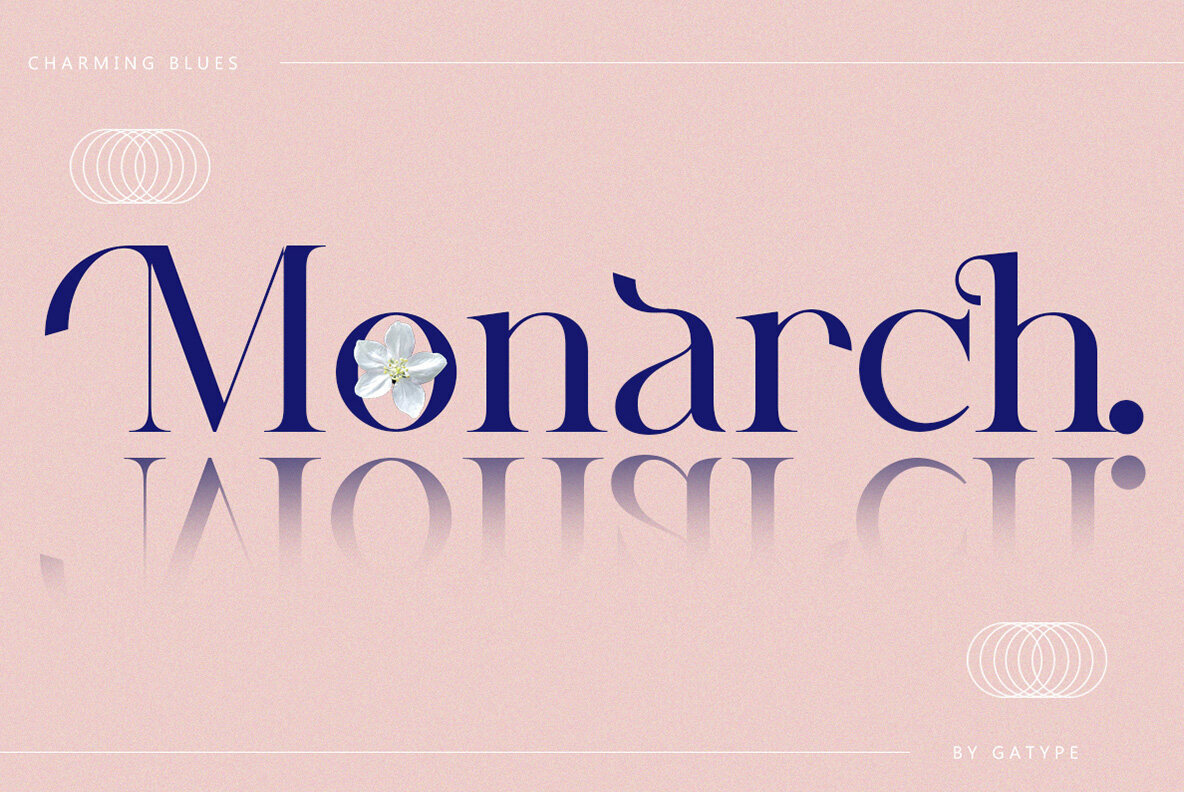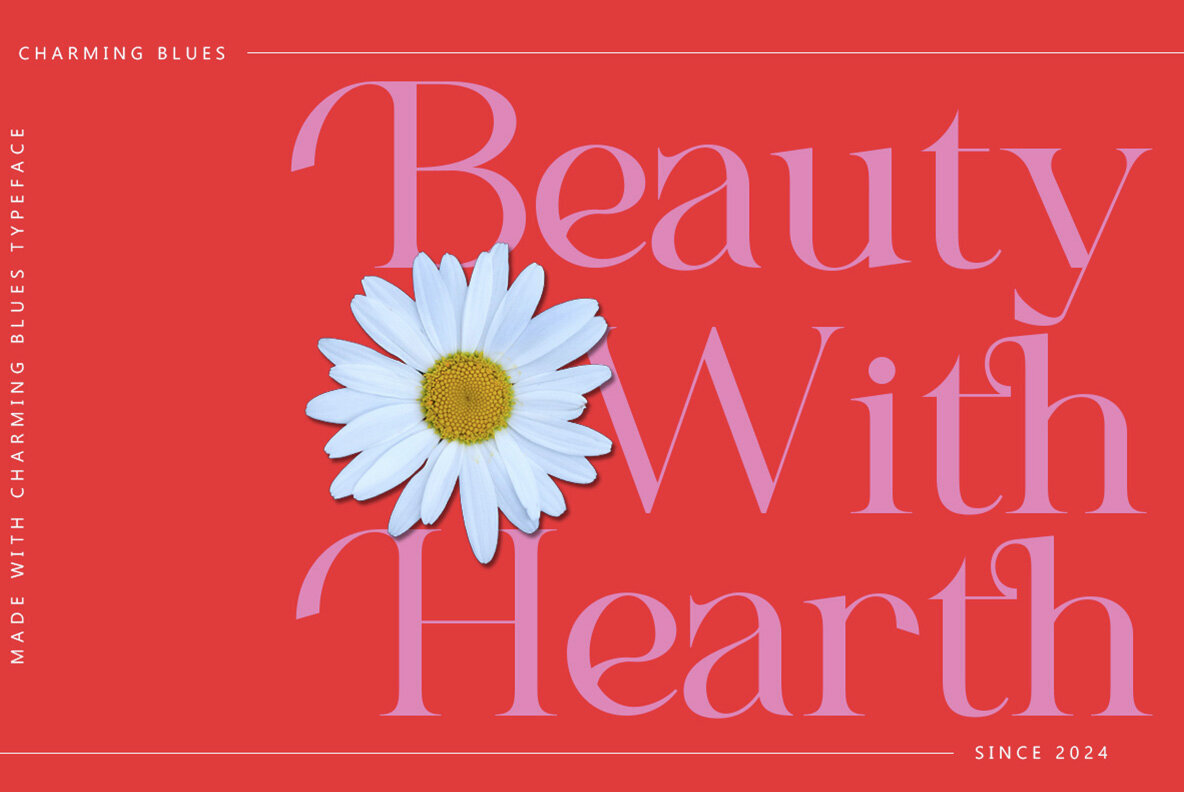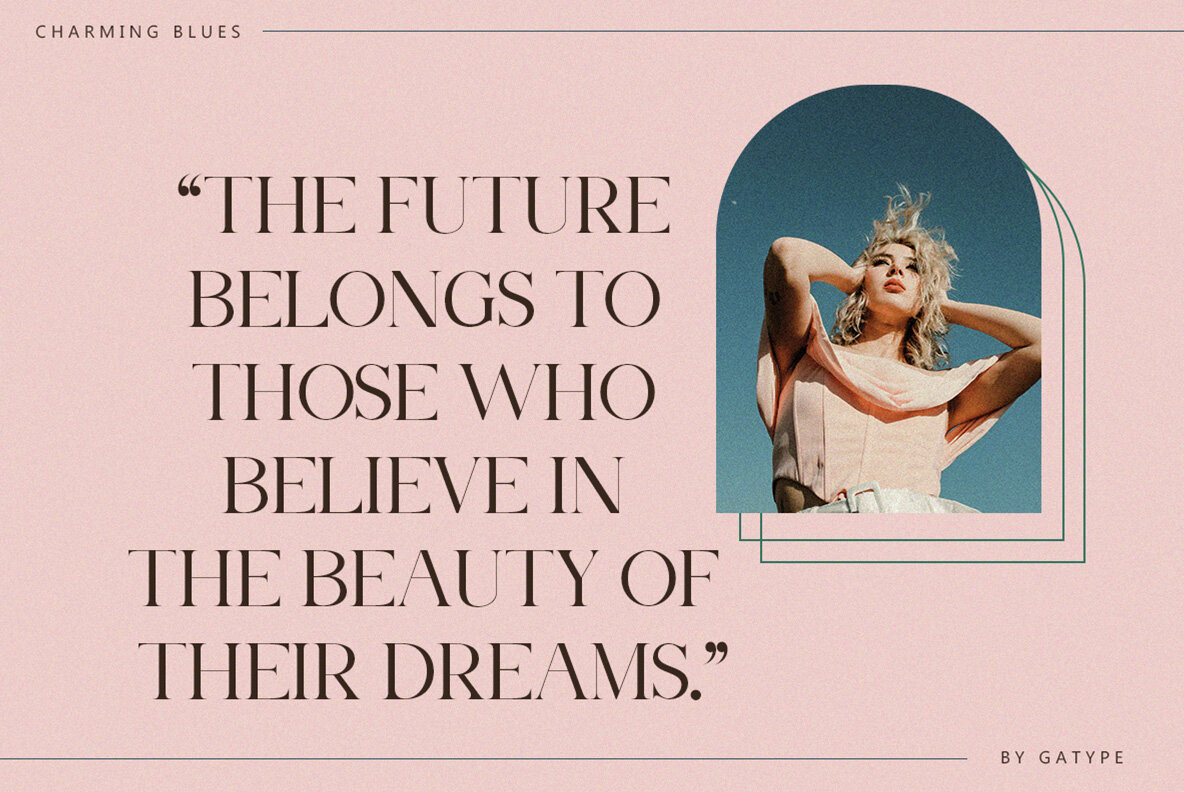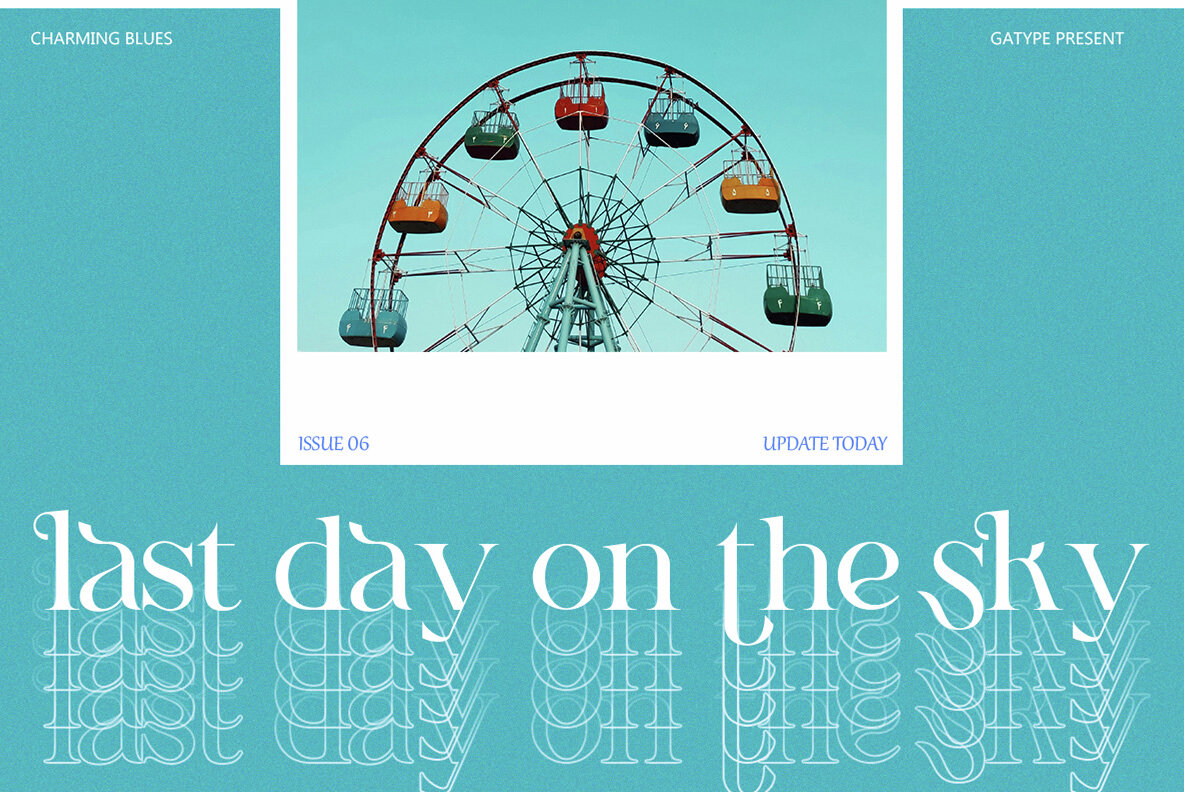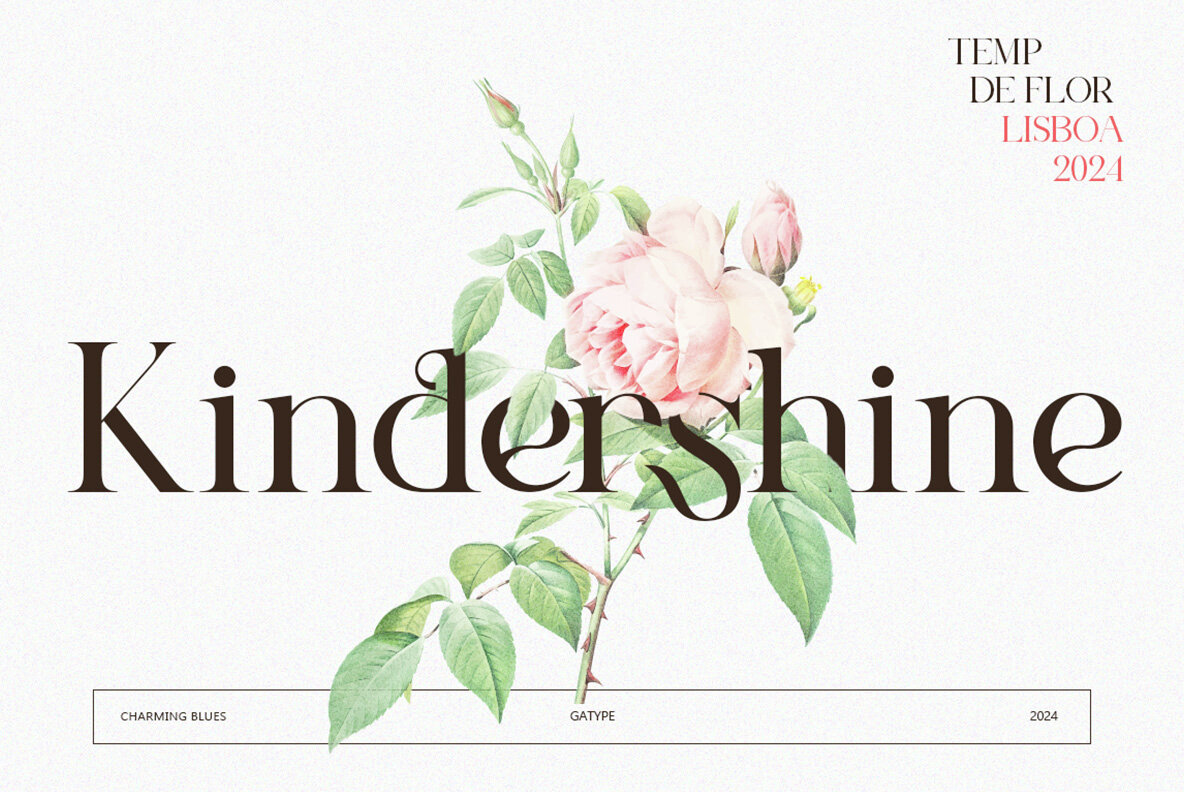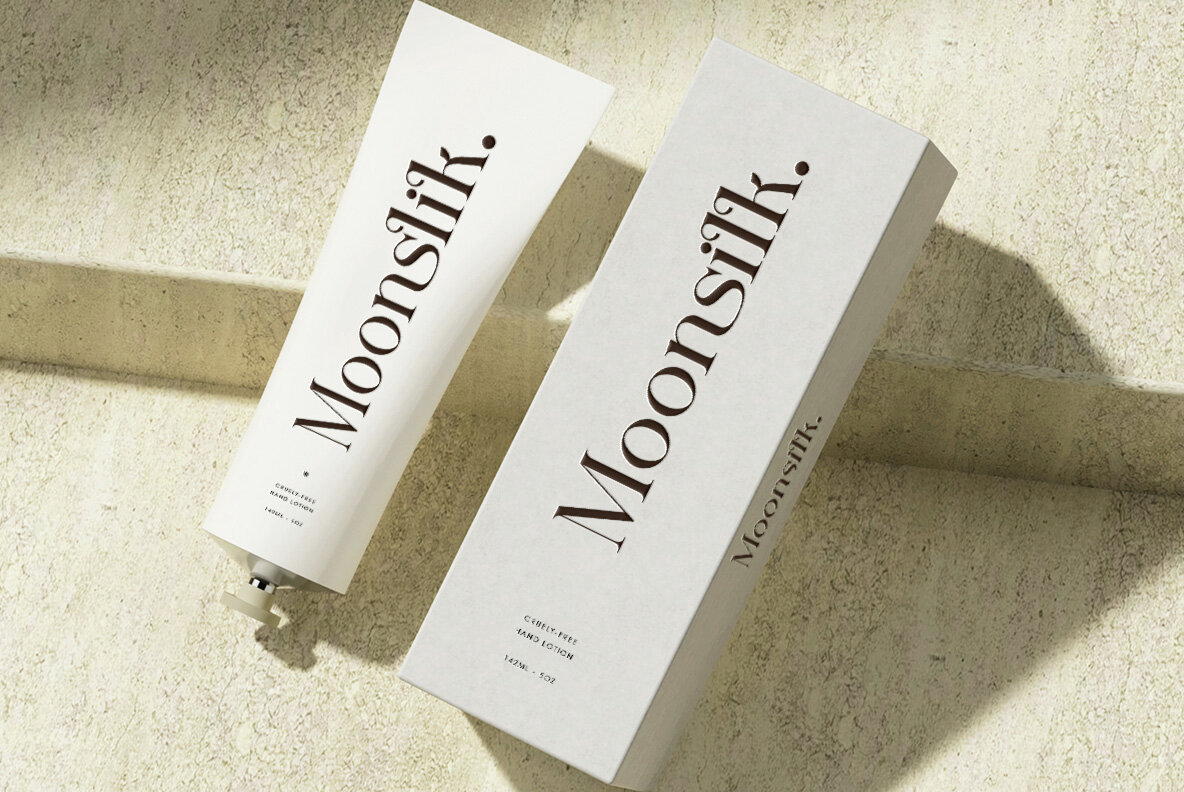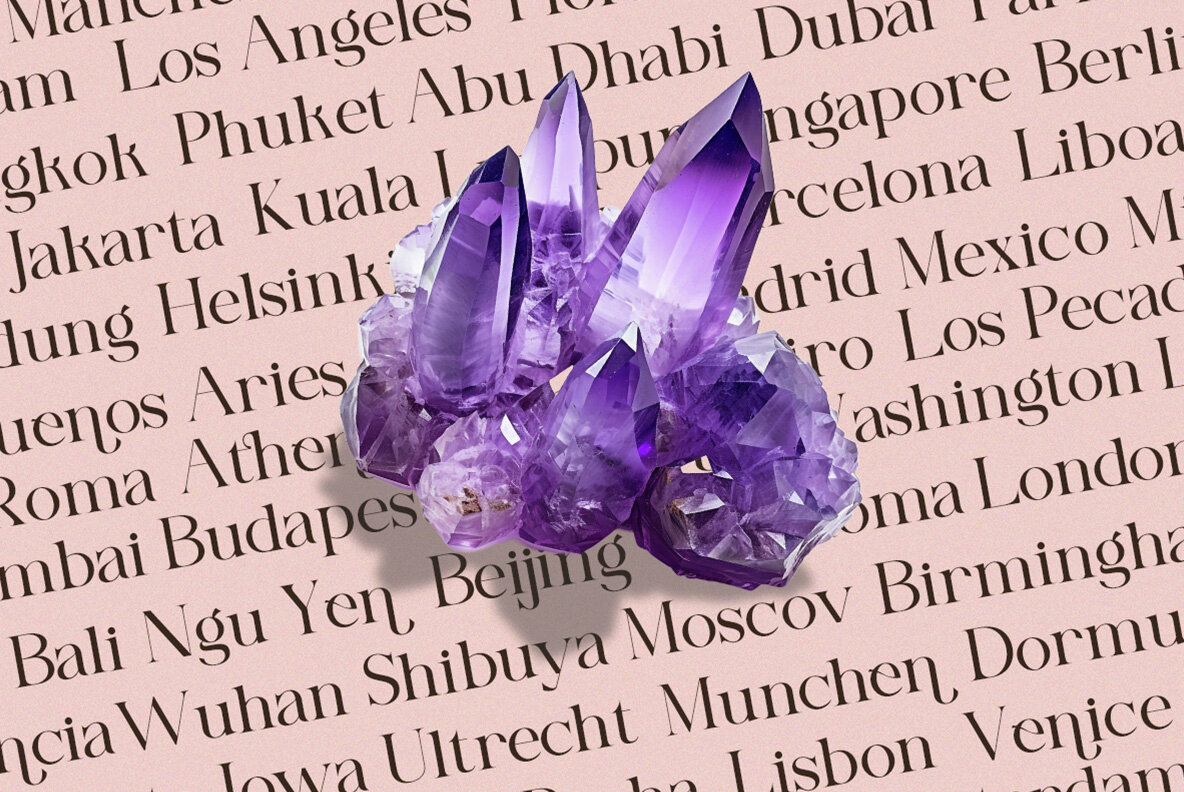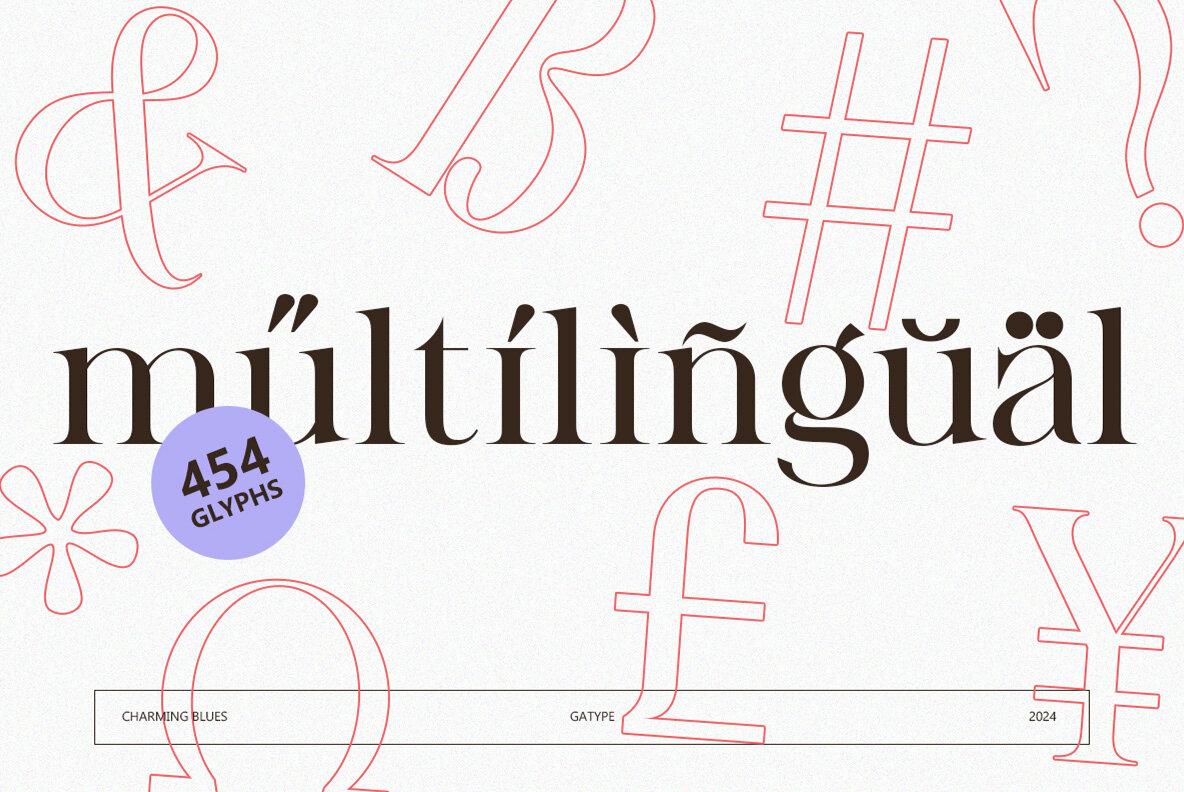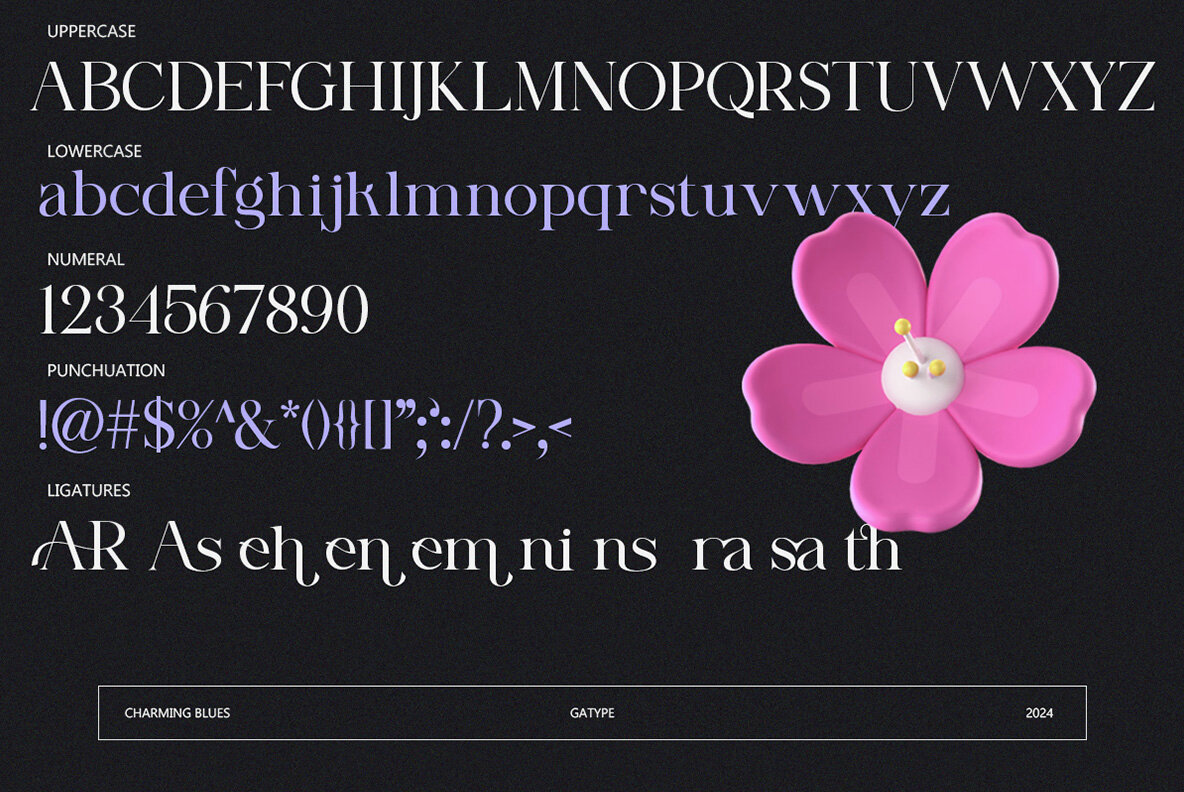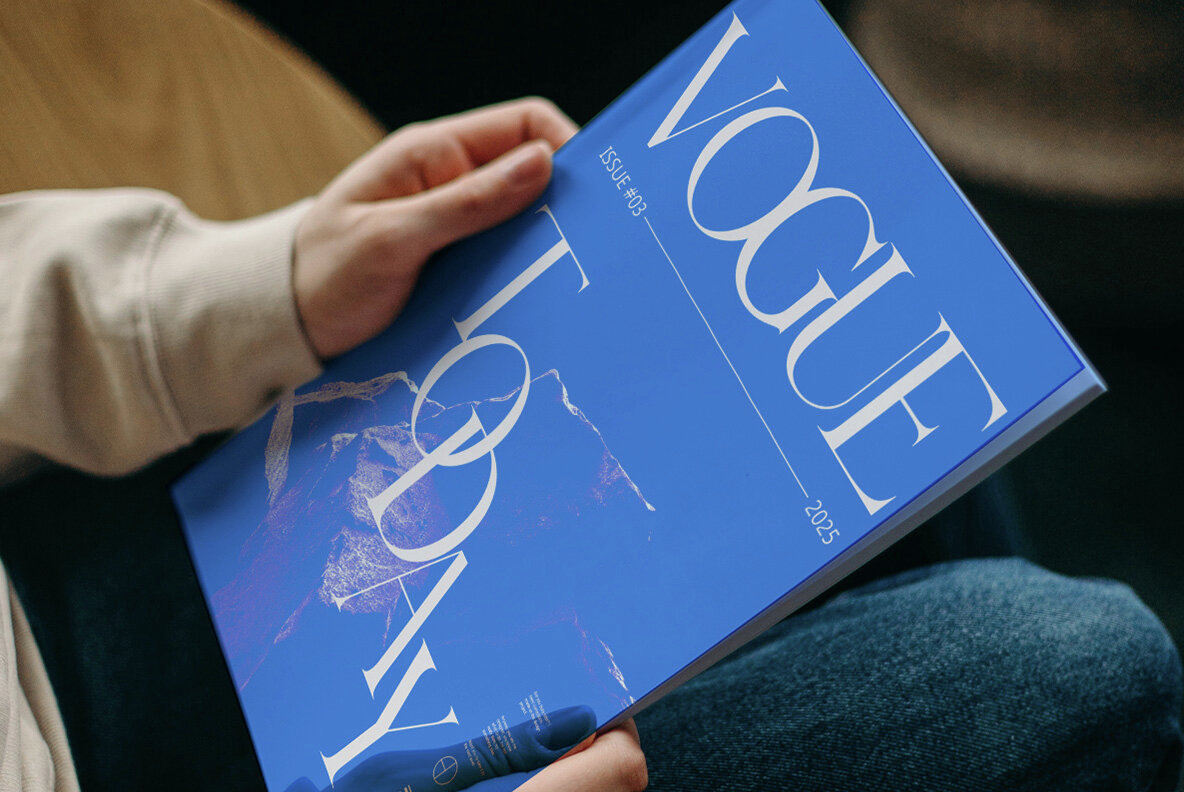
Charming Blues Font
Charming Blues is a sophisticated modern serif font with a luxurious touch. The combination of soft curves and high-contrast glyphs lends it a feminine elegance, making it perfect for use in layout designs such as quotes or body copy. Its unique style also makes it ideal for fashion typography and logo design, adding a distinctive flair to any project.
This versatile font also offers multilingual support, ensuring that it can be used for diverse and wide-ranging design needs. Whether you're working on branding, editorial designs, or digital art, Charming Blues brings a refined and polished aesthetic to the table.